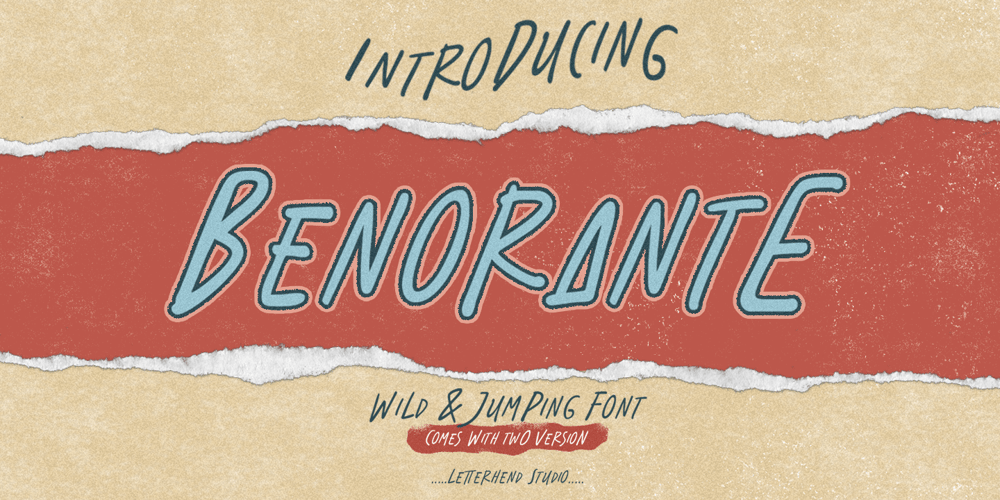
Benorante Font Family was designed by Hendry Juanda and published by Letterhend. Benorante contains 2 styles and family package options. Introducing, Benorante – a display font with natural hand writing with modern and dynamic feel. This type of font perfectly made to be applied especially in logo, and the other various formal forms such as invitations, labels, logos, magazines, books, greeting / wedding cards, packaging, fashion, make up, stationery, novels, labels or any type of advertising purpose.Features :- uppercase & lowercase- numbers and punctuation- multilingual- alternates and ligatures- PUA encodedWe highly recommend using a program that supports OpenType features and Glyphs panels like many of Adobe apps and Corel Draw, so you can see and access all Glyph variations.